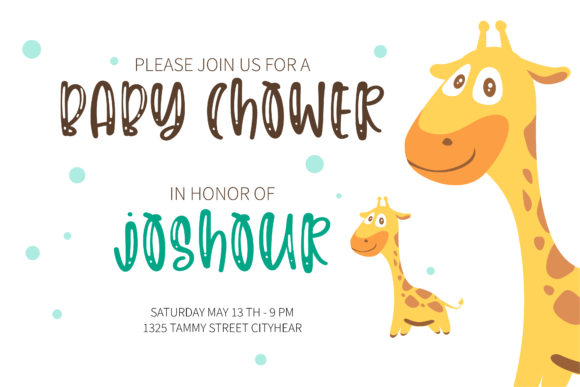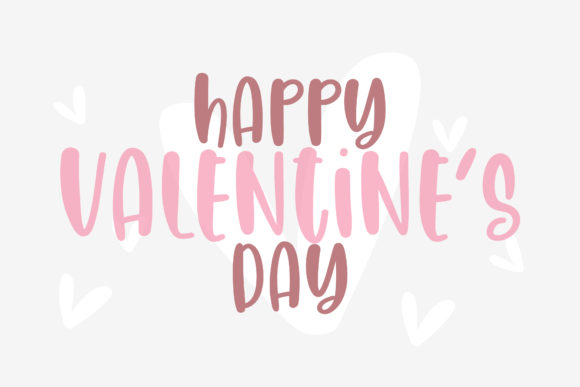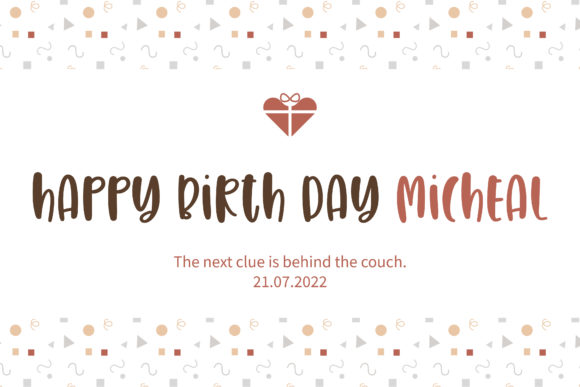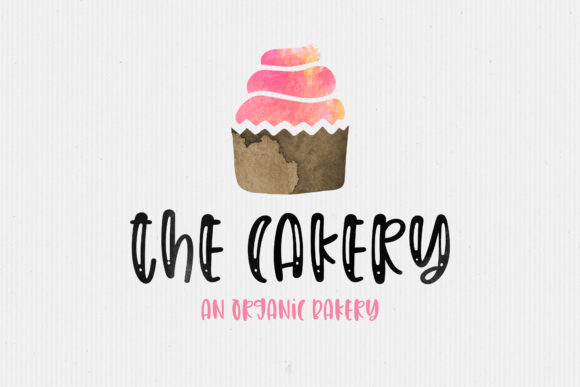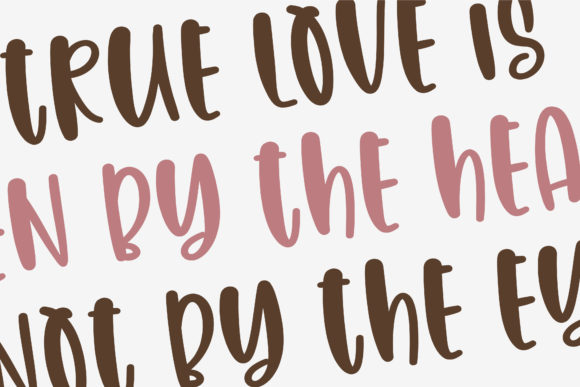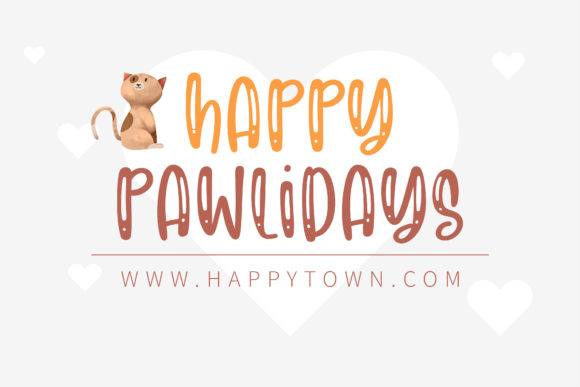
Introducing Happy Giraffe Font: The Ultimate Companion for Designers and Crafters
Are you tired of using the same old fonts in your designs? Look no further! Happy Giraffe Font is here to add a touch of whimsy and fun to your creations. This delightful handwritten font is perfect for designers and crafters who want to bring a smile to their audience’s faces. In this article, we’ll dive into the world of Happy Giraffe Font and explore its features, benefits, and uses.
A Fun and Friendly Handwritten Font
Happy Giraffe Font is a fun and friendly handwritten font that is sure to capture the hearts of your audience. Its natural and unique style makes it incredibly fitting to a large pool of designs, from playful kids’ projects to creative branding and advertising campaigns. The font’s friendly and approachable vibe is perfect for designers who want to create a connection with their audience.
The best part about Happy Giraffe Font is that it’s incredibly versatile. The only limit is your imagination! You can use it to create:
- Playful kids’ party invitations and decorations
- Cute and quirky branding and logos
- Fun and engaging social media graphics
- Creative and eye-catching posters and flyers
- Unique and personalized gifts and crafts
Key Features of Happy Giraffe Font
So, what makes Happy Giraffe Font so special? Here are some of its key features:
- Handwritten style: Happy Giraffe Font has a natural, handwritten style that’s perfect for creating a personal touch in your designs.
- Unique and quirky: The font’s unique and quirky style makes it stand out from the crowd and adds a touch of whimsy to your designs.
- Easy to read: Despite its playful style, Happy Giraffe Font is easy to read and understand, making it perfect for body text and headlines.
- Highly versatile: The font is highly versatile and can be used in a wide range of designs, from digital projects to print materials.
Why Designers and Crafters Love Happy Giraffe Font
Designers and crafters love Happy Giraffe Font for many reasons. Here are a few:
- Time-saving: The font saves designers and crafters time and effort, as they can quickly create fun and engaging designs without having to spend hours on typography.
Tips and Tricks for Using Happy Giraffe Font
Here are some tips and tricks for getting the most out of Happy Giraffe Font:
- Pair it with other fonts: Happy Giraffe Font pairs well with other fonts, so don’t be afraid to experiment with different combinations.
- Use it in different sizes: The font looks great in different sizes, from large headlines to smaller body text.
- Experiment with colors: Happy Giraffe Font looks great in a range of colors, so don’t be afraid to get creative and try out different hues.
In conclusion, Happy Giraffe Font is a fun and friendly handwritten font that’s perfect for designers and crafters who want to add a touch of whimsy to their creations. Its natural and unique style makes it incredibly fitting to a large pool of designs, and its versatility and ease of use make it a must-have for any designer or crafter. So why not give Happy Giraffe Font a try and see what amazing creations you can come up with?